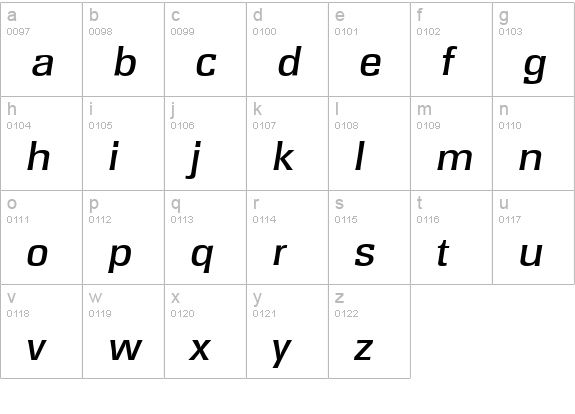
RochesterSerial-Medium-Italic is a balanced, medium-weight, italic variant in the RochesterSerial typeface family \xE2\x80\x94 well suited to sub-headlines, navigation, and balanced editorial work.
Introducing RochesterSerial-Medium-Italic font, a timeless and elegant typeface that exudes sophistication and grace. This exquisite font features a perfect balance of medium weight and italic slant, making it ideal for adding a touch of refinement to your designs. RochesterSerial-Medium-Italic font is versatile and well-suited for various projects, from branding to editorial designs. Its classic yet modern aesthetic makes it a favorite among designers looking to elevate their work with a touch of class. And the best part? RochesterSerial-Medium-Italic font is available for free download at FontsMarket.com. Yes, you read that right! You can easily access this premium font at no cost, making it a valuable addition to your font collection without breaking the bank. Don't miss out on the opportunity to enhance your designs with the beauty and sophistication of RochesterSerial-Medium-Italic font. Download it for free today and elevate your creative projects to new heights.